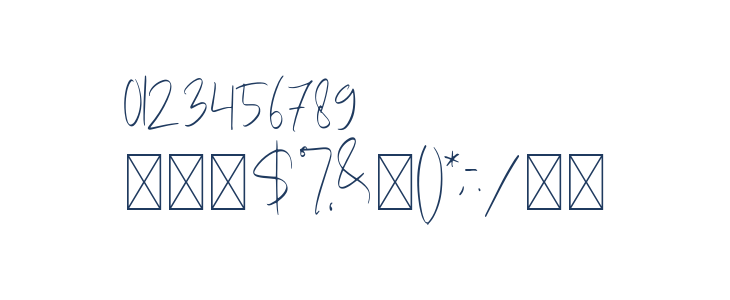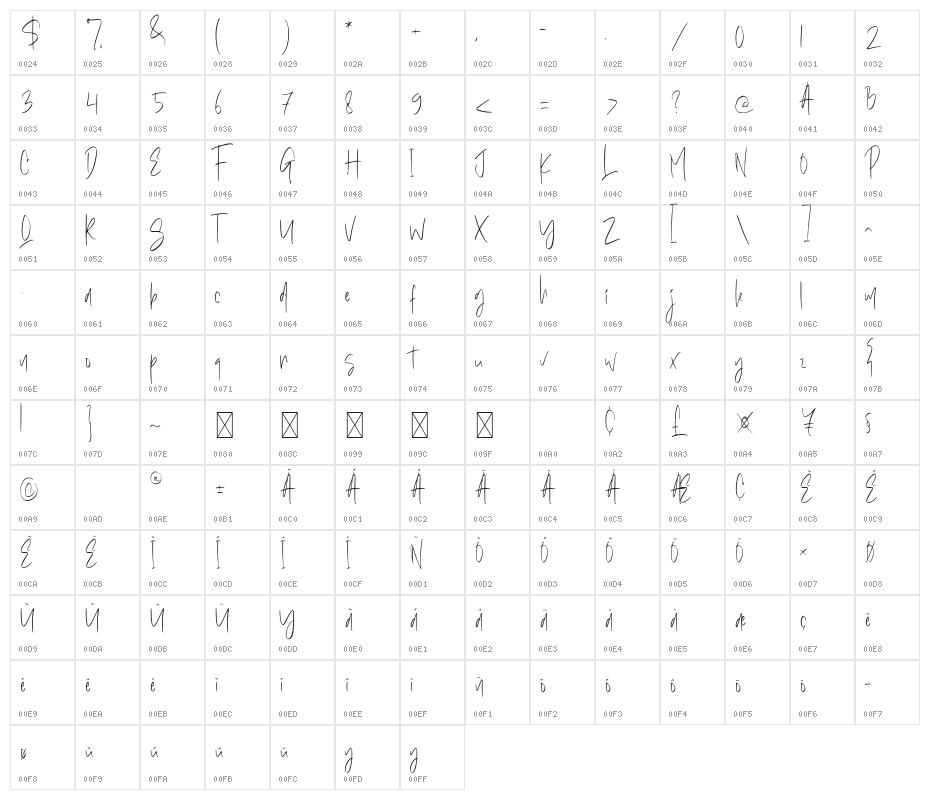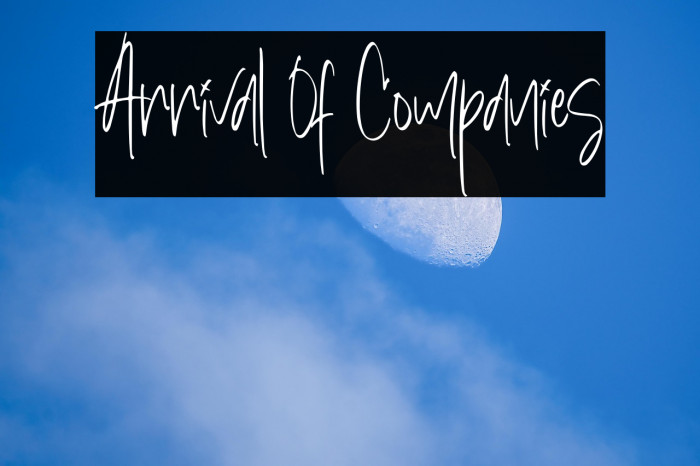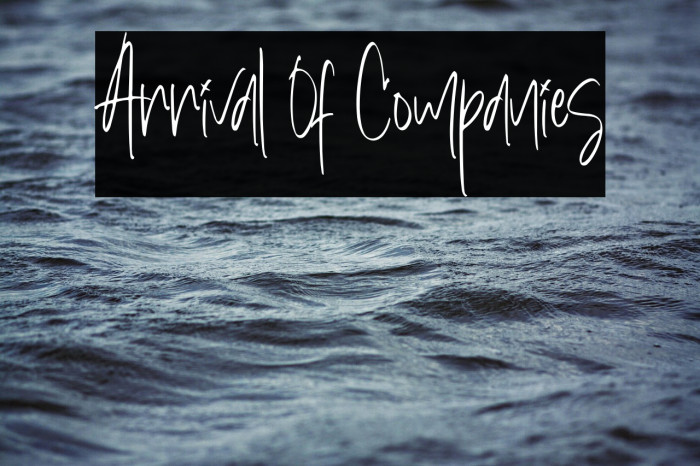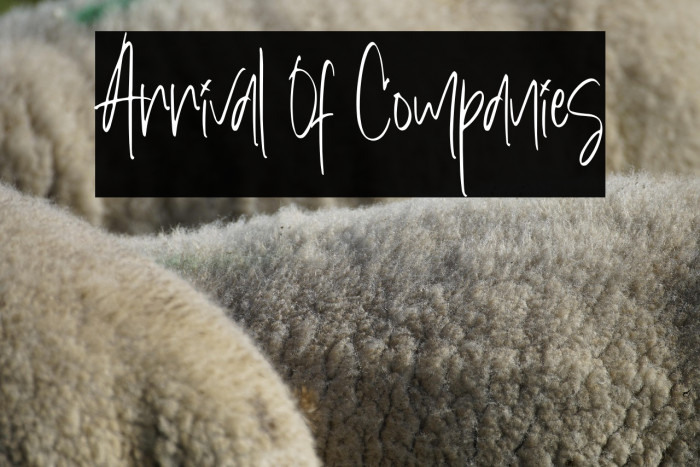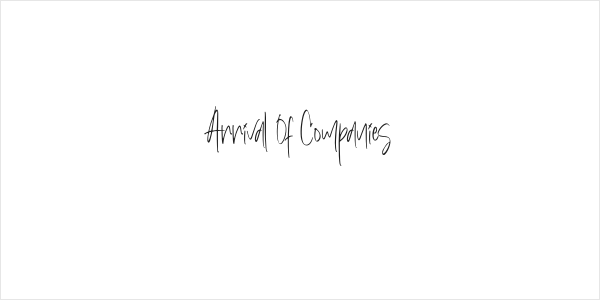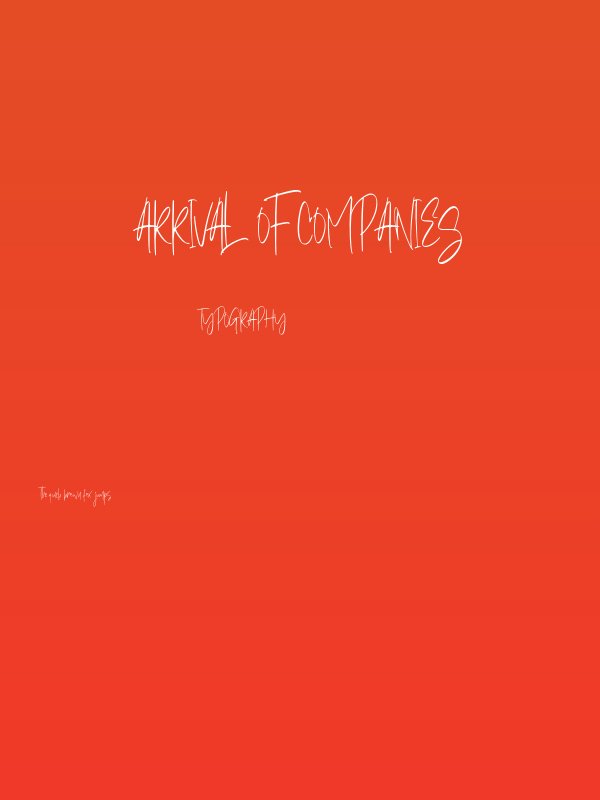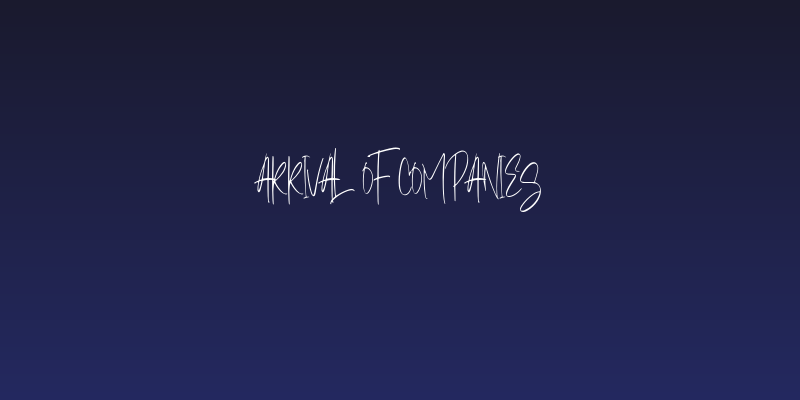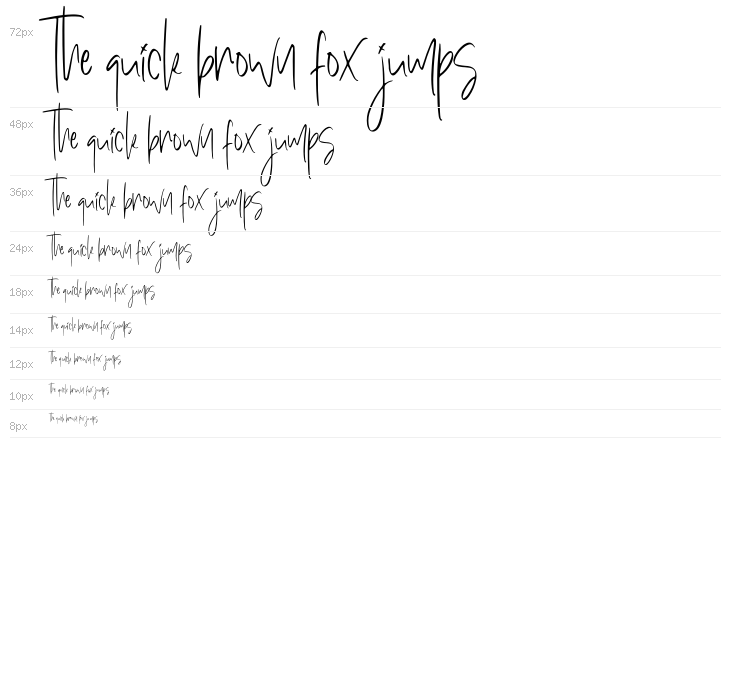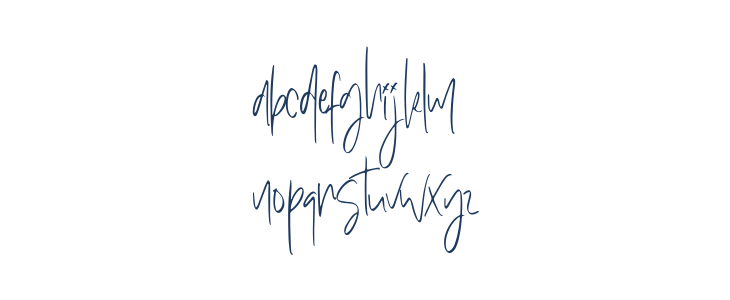
Arrival Of Companies Font
Arrival Of Companies Description
This font features a dynamic and expressive handwritten style, characterized by its fluid, cursive strokes and a playful, informal appearance. The letters are elongated and slightly irregular, giving it a personal and artistic touch. The uppercase and lowercase letters maintain a consistent flow, while the numerals and special characters complement the overall aesthetic with their unique, hand-drawn look. This font exudes creativity and spontaneity, making it ideal for projects that require a personal or artistic flair.
| Overall Style | Artistic, Creative |
| Proposed Projects | Ideal for greeting cards, invitations, personal branding, artistic projects, and creative social media graphics. |